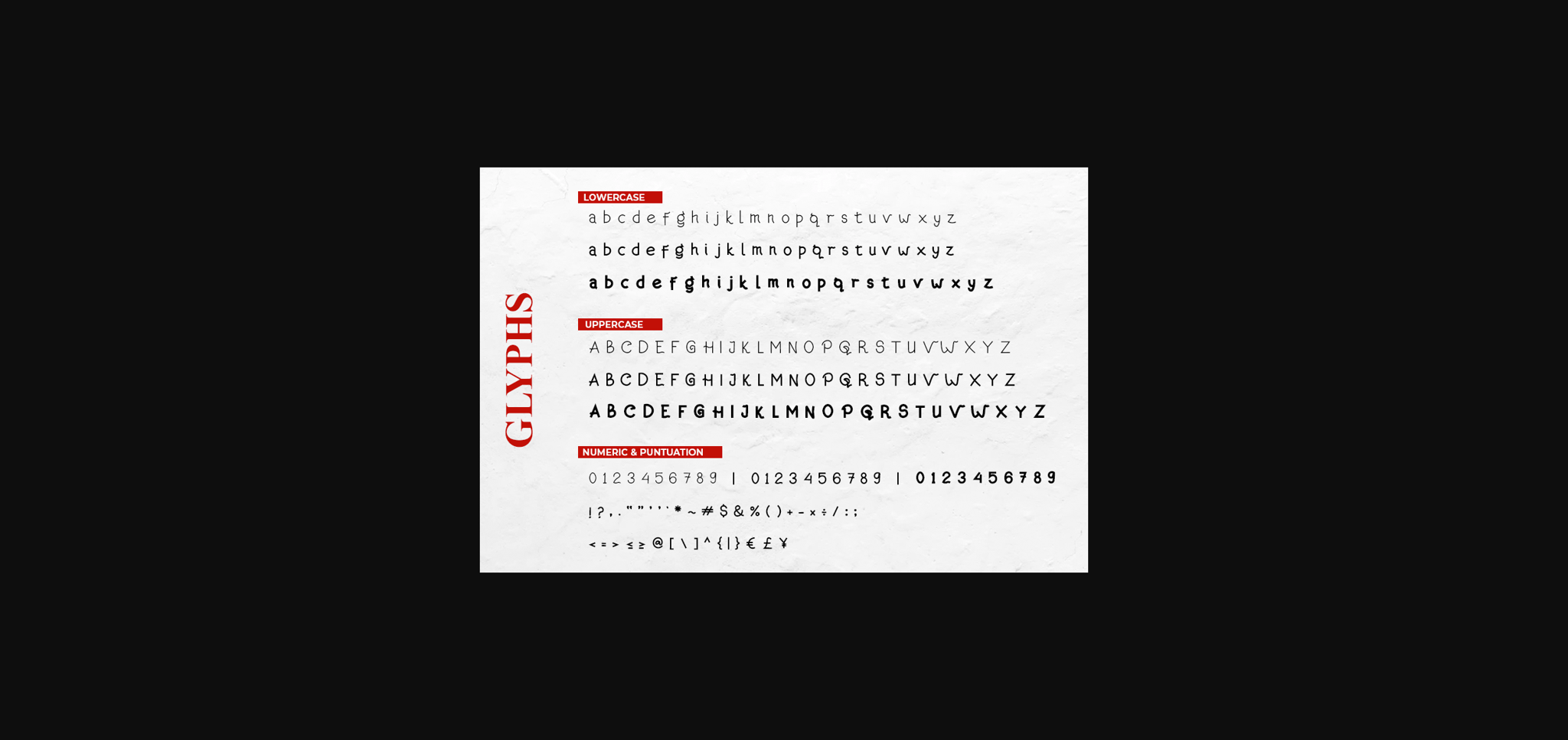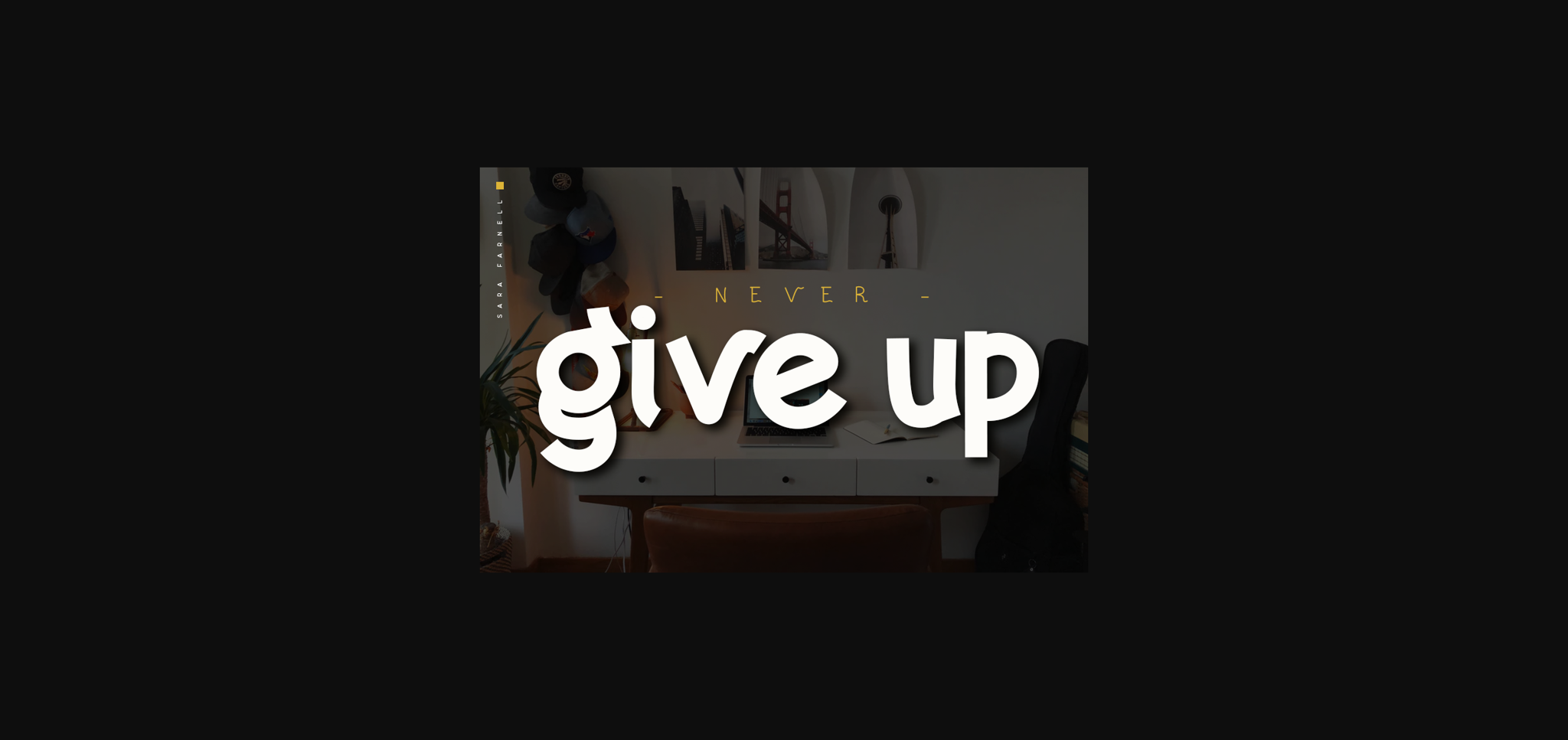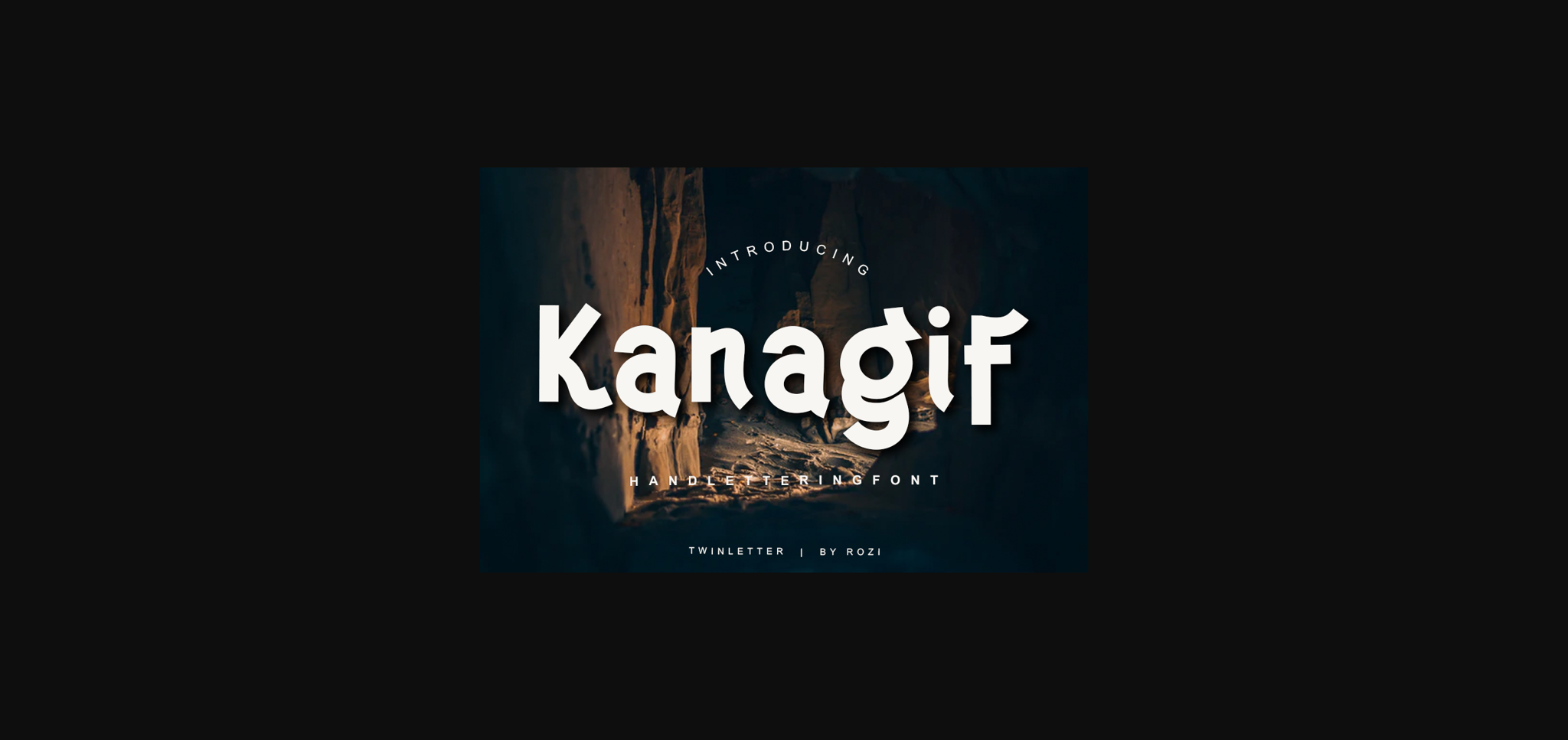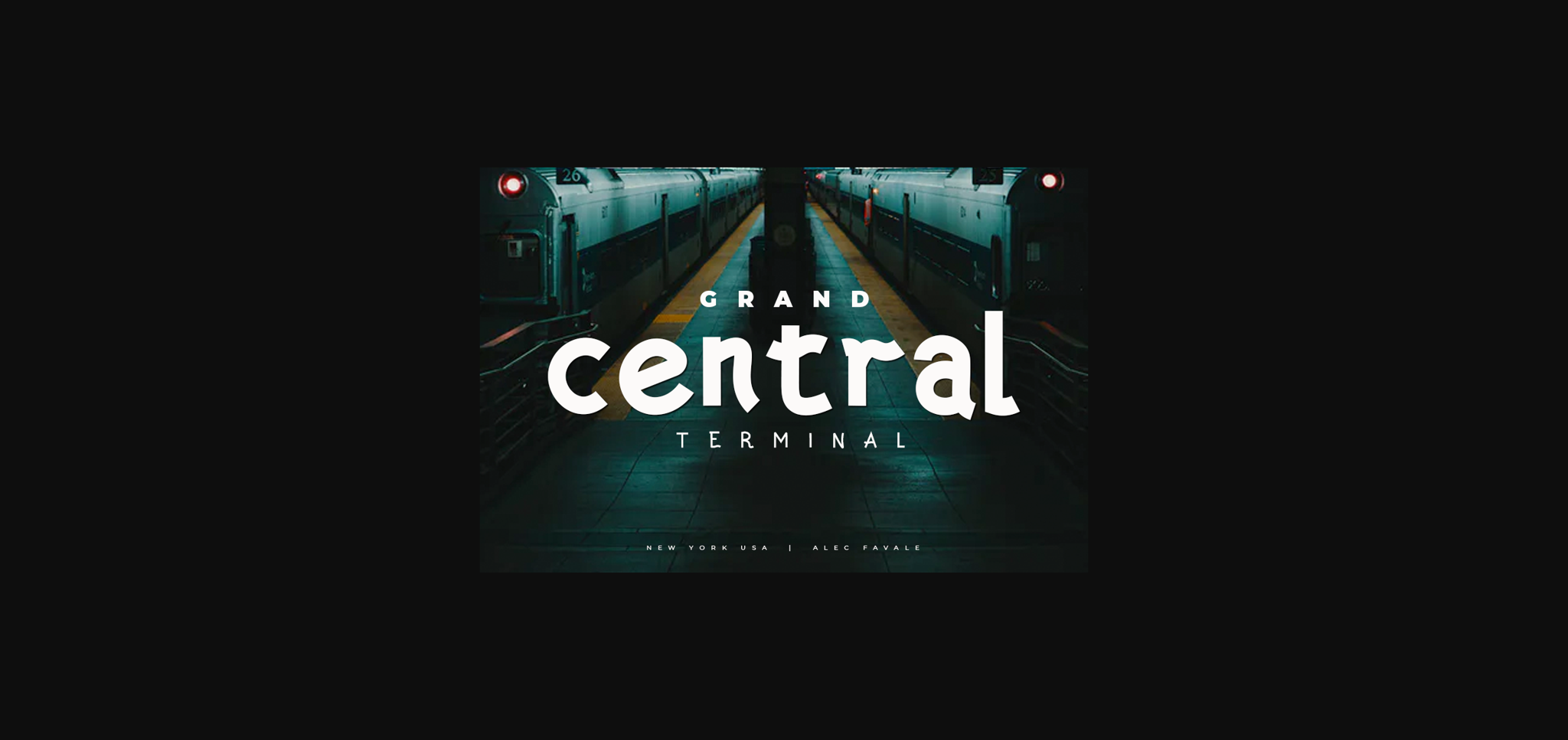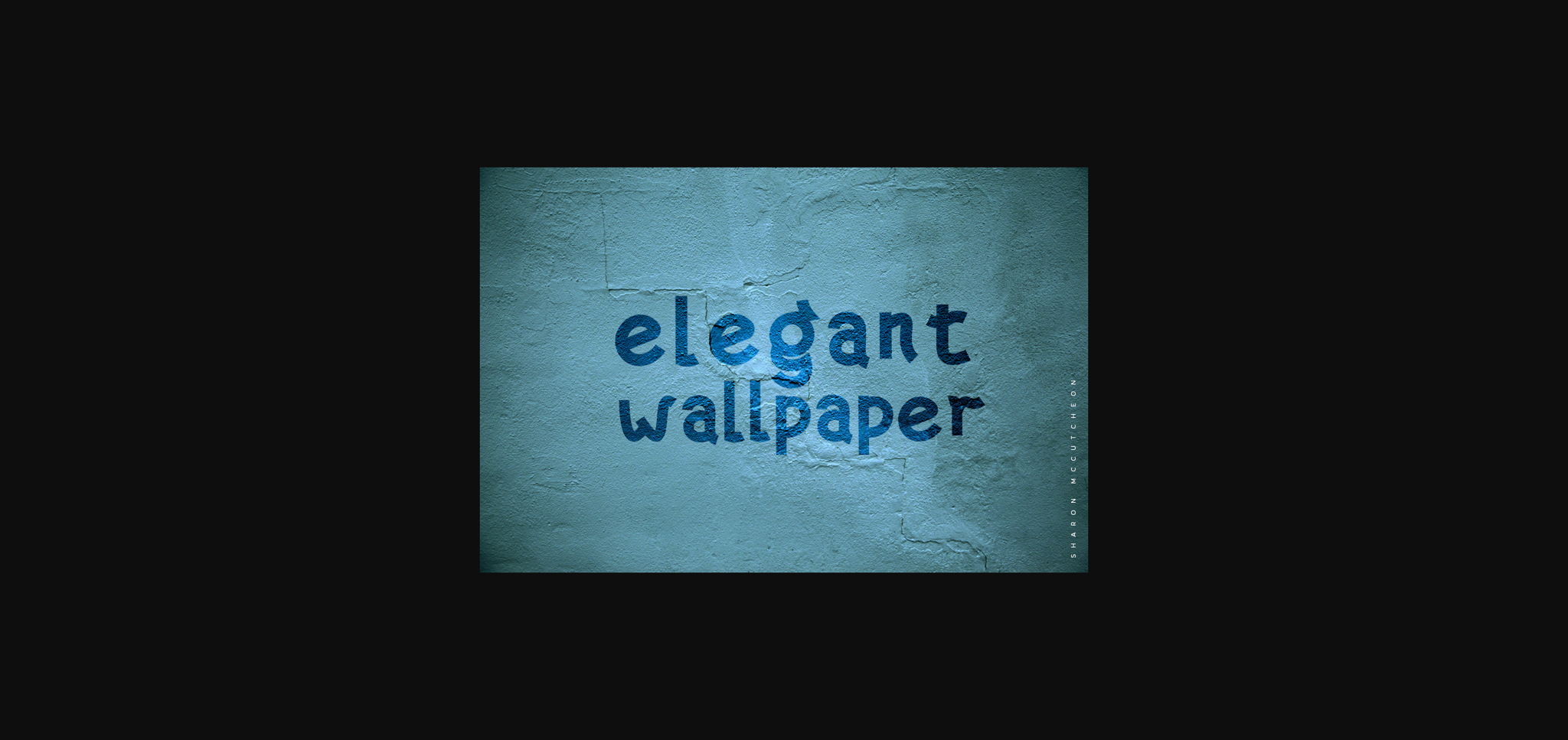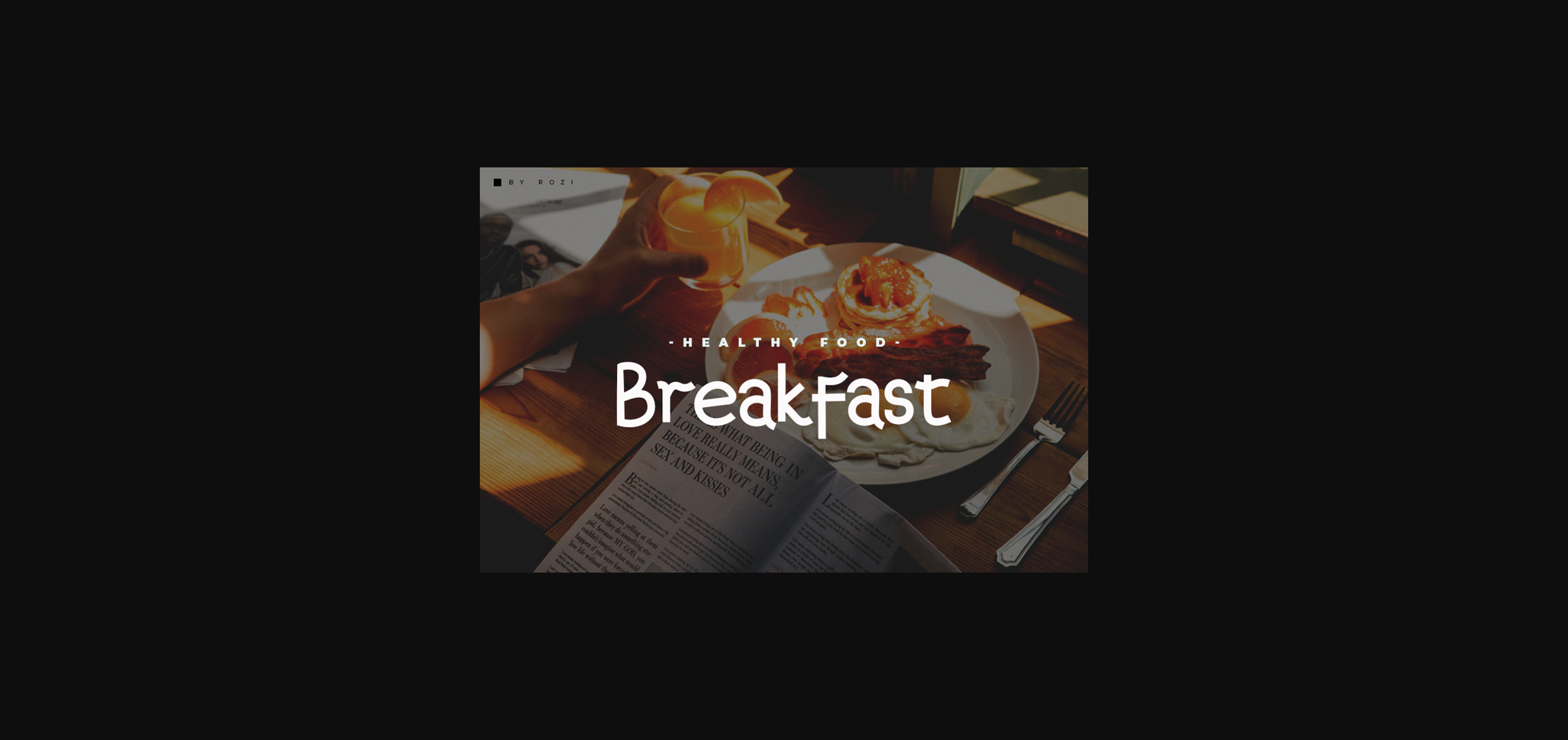
Kanagif Font
About Kanagif Font
Kanagif is a bold sans serif font, carefully handcrafted to become a true favorite. Kanagif is the perfect font for making original and outstanding designs.